"The Viriditas mixtape is a parallel path to the Viriditas project: tracks by artists I deeply admire, assembled as another way of listening. Like plants sprouting randomly through concrete, it follows the sideways, offbeat, sometimes askew logic of dreams - listening for resonances that emerge where we least expect them." - Miho Hatori
For Sharp FM 024, Sharp Type partnered with our friends at Age of Reflections to present a mix by Japanese artist, musician, and producer Miho Hatori.
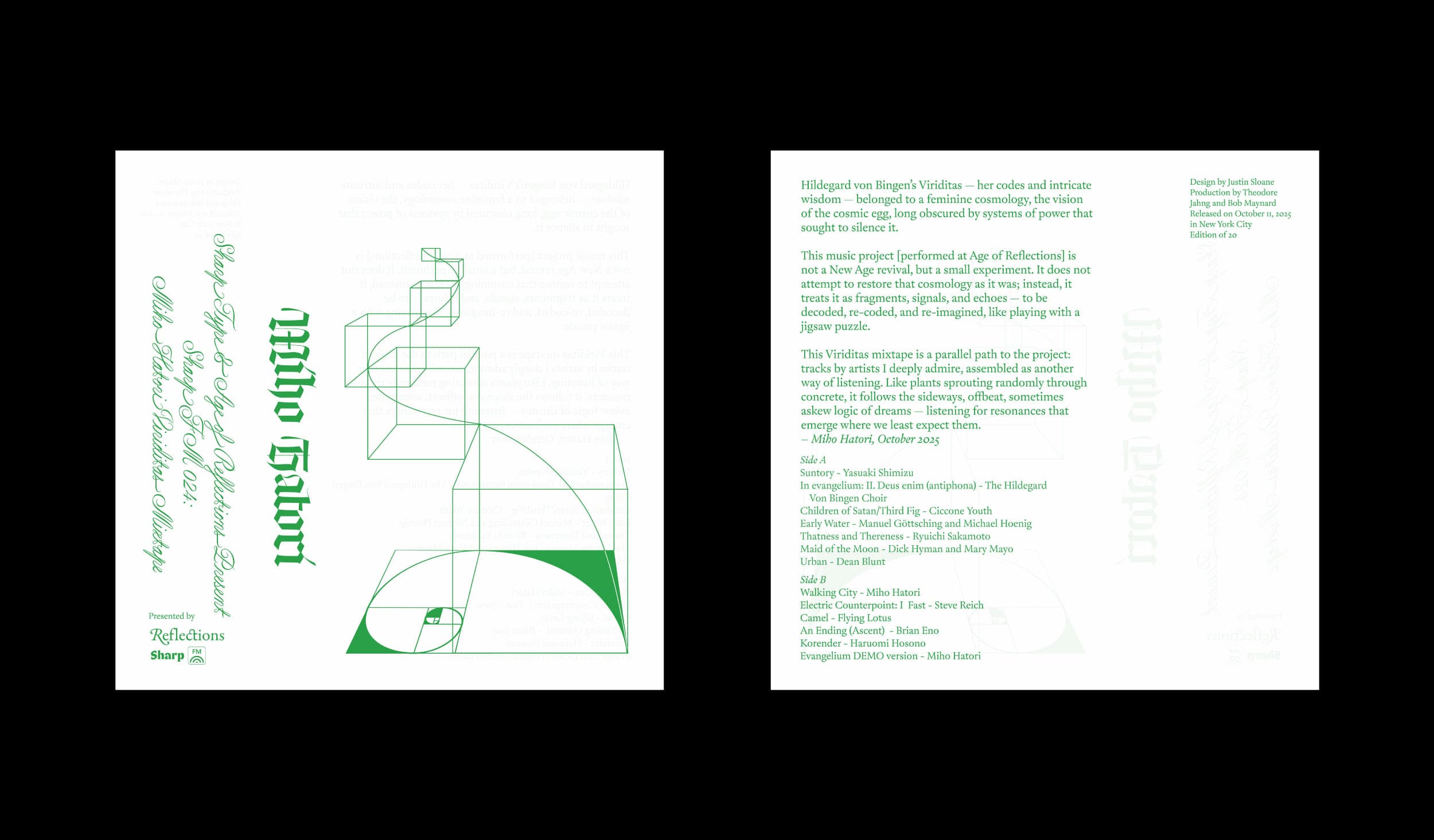
Miho made a mix that acts as a companion piece to her latest body of original music. Inspired by the legendary Hildegard von Bingen and her concept of Viriditas, this music "is both a reminder and a release, a kind of play and an experiment in hearing Hildegard’s codes in another way," says Miho.
Hildegard’s Viriditas - her codes and intricate wisdom - belonged to a feminine cosmology, the vision of the cosmic egg, long obscured by systems of power that sought to silence it. For Sharp FM 024, artist and producer Miho Hatori brings those echoes forward through Reflections, crafting a sonic experiment that sits between meditation, play, and coded transmission. This is not a New Age revival, but a living dialogue - a way of decoding, re-coding, and re-imagining Hildegard’s fragments within the layered noise of contemporary sound.
Sharp Serif Text takes the lead in the mix’s cover and tracklist art, joined by Cordier Script and a preview of Sharp Fraktur Bold. Together, these typefaces bridge historical erudition with modern finesse. Their interplay highlights each font’s distinct qualities: the sensuous strokes of Cordier playfully abut the hard edges of Lucas’s unreleased Fraktur, while Sharp Serif Text flexes its scalability — set large, set small, and set smaller still.
The mix follows no straight path; it drifts like signal through static, tracing the sideways, off-beat logic of dreams. It’s a parallel path to the Viriditas project itself - a way of listening differently, where resonance sprouts unexpectedly, like plants breaking through concrete.
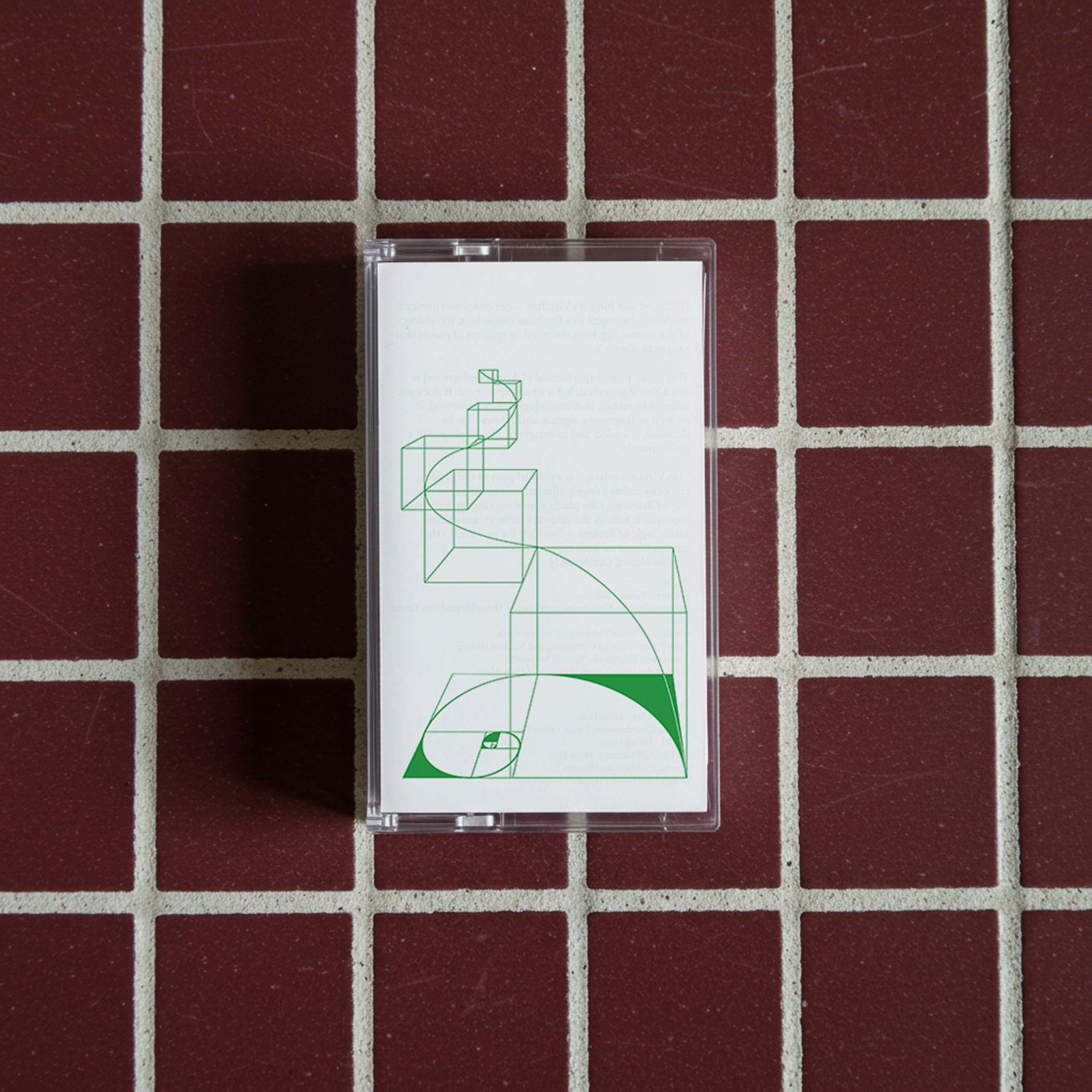
This mix has been released ahead of Miho’s October concert in New York City at Age of Reflections with John Carroll Kirby. To commemorate the occasion, it seemed appropriate to materialize this mix in cassette tape form. Together with Miho and the Reflections team, we produced a small run of tapes which will be available exclusively at the event.